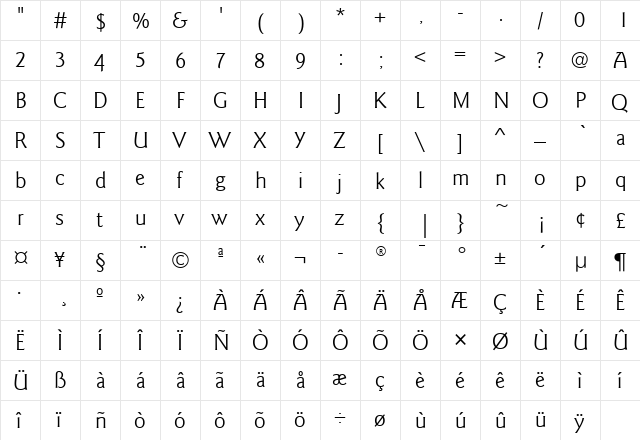
GoudySansITC Book
Design Context for GoudySansITC Typeface
GoudySansITC is a composed and adaptable typeface that performs quietly and consistently across a wide range of design contexts.